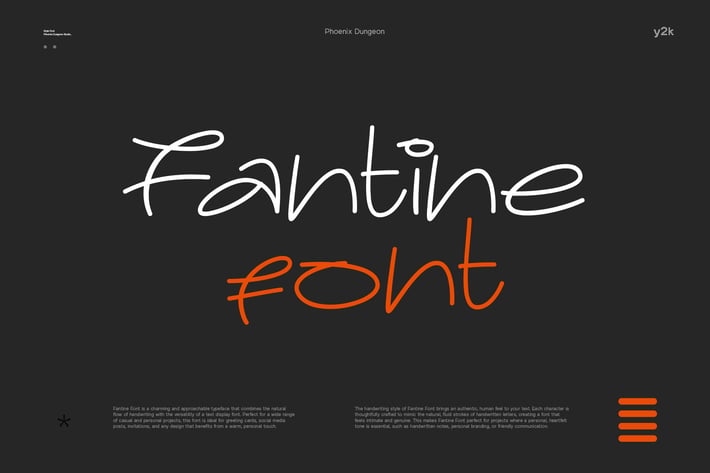
Fantine Font
Fantine Font is a charming and approachable typeface that combines the natural flow of handwriting with the versatility of a text display font. Perfect for a wide range of casual and personal projects, this font is ideal for greeting cards, social media posts, invitations, and any design that benefits from a warm, personal touch.